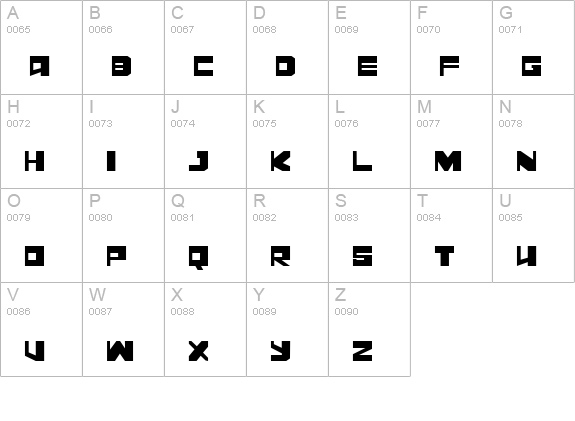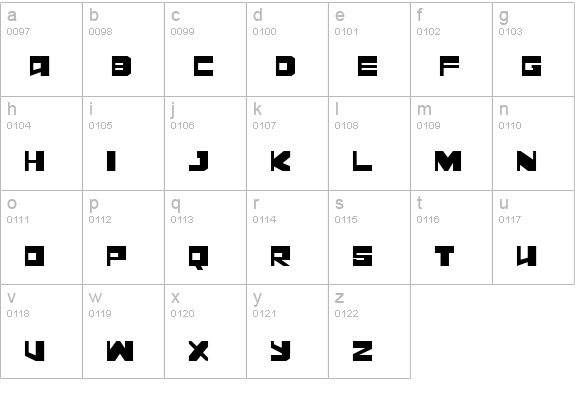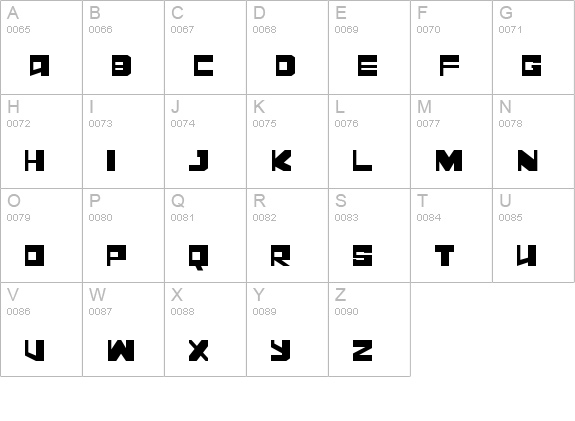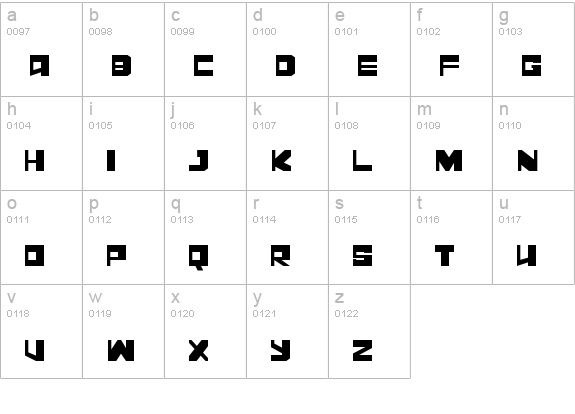
Leningrad Disco Font Details
Leningrad Disco font is a vibrant and energetic typeface that brings back the retro charm of the disco era. Created with a touch of nostalgia and a dash of modernity, this font is perfect for capturing the groovy spirit of the 70s and 80s. With its bold and funky letterforms, Leningrad Disco font is sure to make a statement in any design project. Whether you're creating party invitations, album covers, or posters for a themed event, this font will add a touch of disco magic and make your designs stand out. What makes Leningrad Disco font even more appealing is that it is freely available to download at FontsMarket.com. This means that you can easily access this font and use it in your projects without any restrictions. Whether you're a professional designer or a hobbyist, this font is accessible to everyone who wants to add a touch of retro flair to their designs. So why wait? Download Leningrad Disco font today and let the disco vibes take over your designs. With its bold and vibrant style, this font will transport you back in time to the glitz and glamour of the disco era. Get ready to boogie down and create designs that will make heads turn and feet tap.